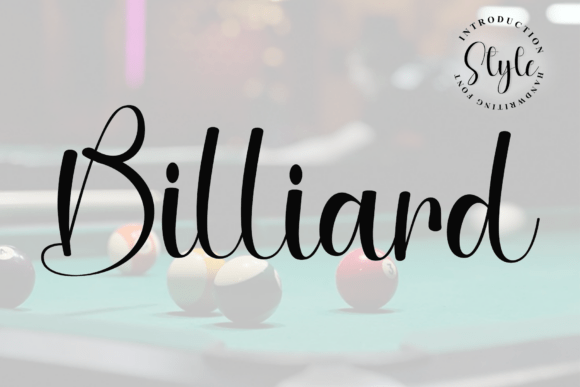
The Billiard Font: A Breath of Fresh Air for Your Designs
I’ll never forget the time I was working on a travel photography project, and my client asked me to create a brand identity that screamed “adventure” and “elegance” at the same time. I was stuck in a font rut, trying to find the perfect match. That’s when I stumbled upon the Billiard font. It was like a mountain breeze swept through my design struggles, and suddenly, everything became clear. In this article, I’ll share my love for the Billiard font, its unique features, and how to make the most of it in your designs.
A Personal Review: What I Love About Billiard
The Billiard font has quickly become a favorite in my design arsenal. Here’s what I love about it:
- ✨ Unique and professional: Billiard brings a fresh perspective to the modern handwritten collection.
- ✅ Clean and approachable: Its style makes it perfect for travel photography, outdoor gear branding, and sophisticated web design.
- 💫 Tall, thin strokes: The subtle, airy slant gives it a refined aesthetic that’s hard to resist.
- 🌟 Versatile: It works beautifully for both digital and print projects.
While Billiard is an excellent font, it’s not without its quirks:
- 🤔 Limited use in body text: Due to its elegant, yet thin strokes, it might not be the best choice for long paragraphs.
- ⚠️ Requires attention to spacing: To maintain its crisp elegance, you might need to adjust the tracking and kerning.
The Story Behind Billiard
Billiard was designed with the intention of capturing the essence of clarity and crisp elegance. Its creator aimed to craft a font that feels fresh and airy, perfect for designs that require a touch of sophistication. While the real story behind Billiard might be fictional, its impact on the design world is very real.
| What makes Billiard suitable for travel photography? | Billiard’s clean and approachable style, combined with its elegant strokes, makes it perfect for capturing the essence of adventure and exploration. |
| Can I use Billiard for body text? | While possible, Billiard’s thin strokes might not be ideal for long paragraphs. It’s best used for headlines, titles, or short text elements. |
| Is Billiard a versatile font? | Yes, Billiard works beautifully for both digital and print projects, making it a great addition to any designer’s font library. |
| Does Billiard support OpenType features? | Yes, Billiard supports OpenType features like ligatures and stylistic alternates, allowing for creative and unique text styles. |